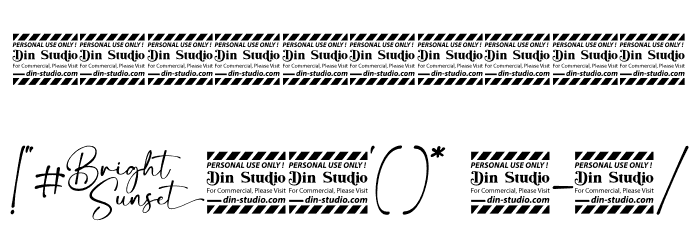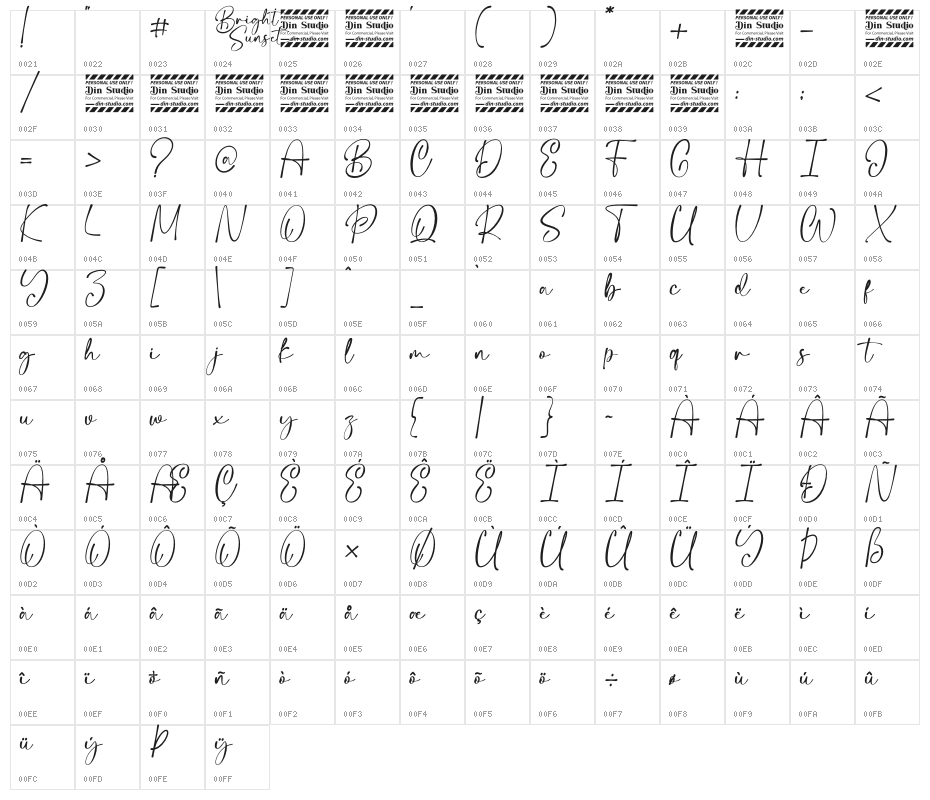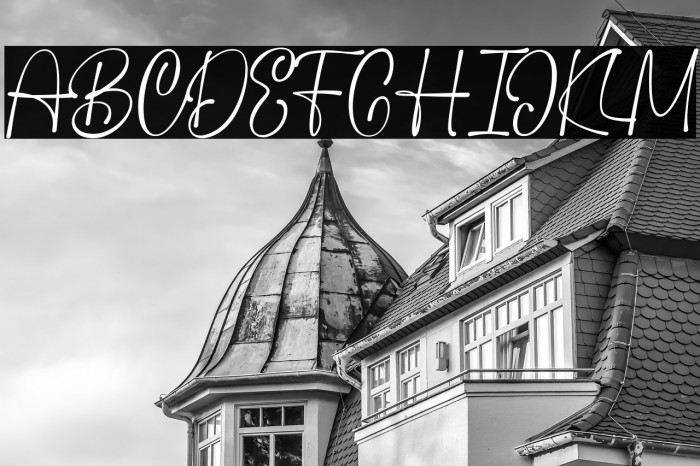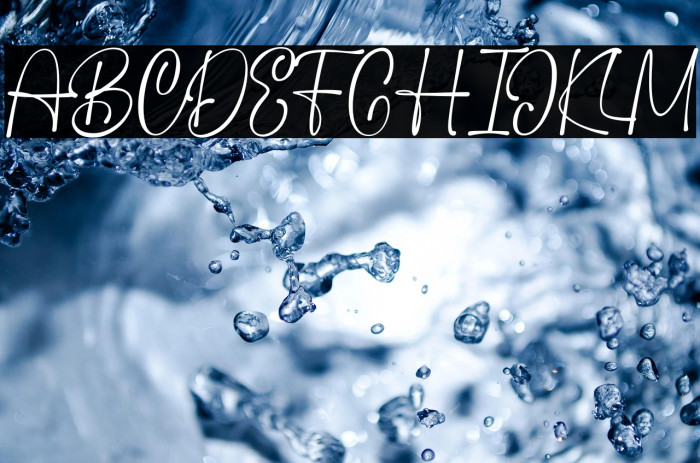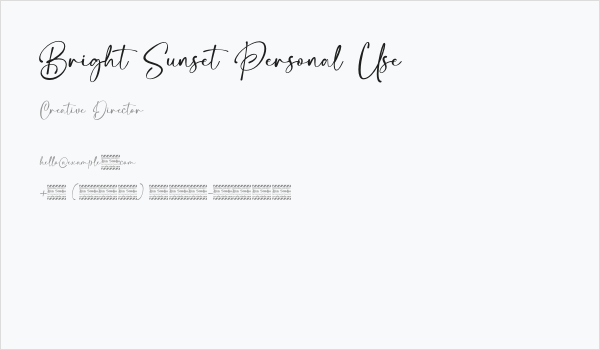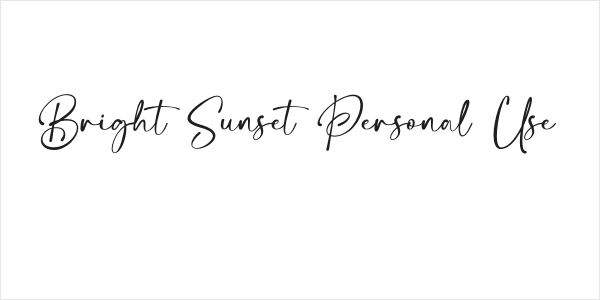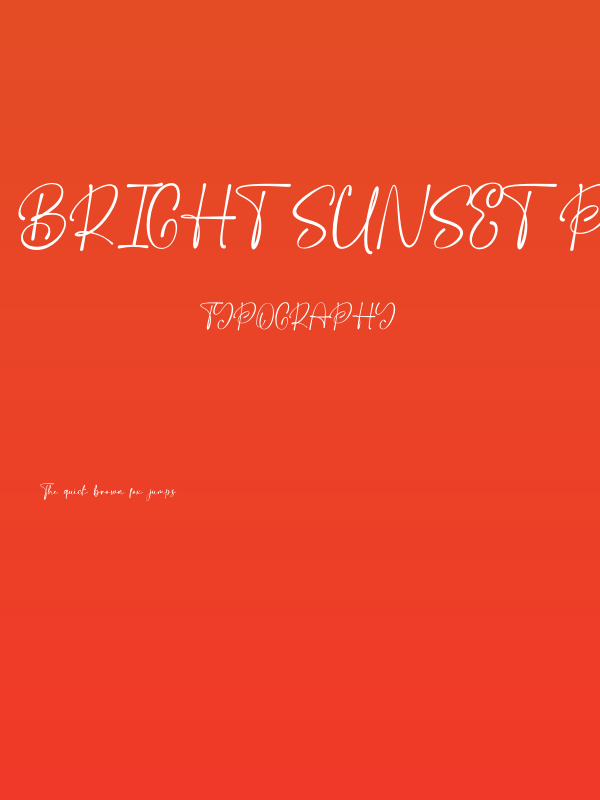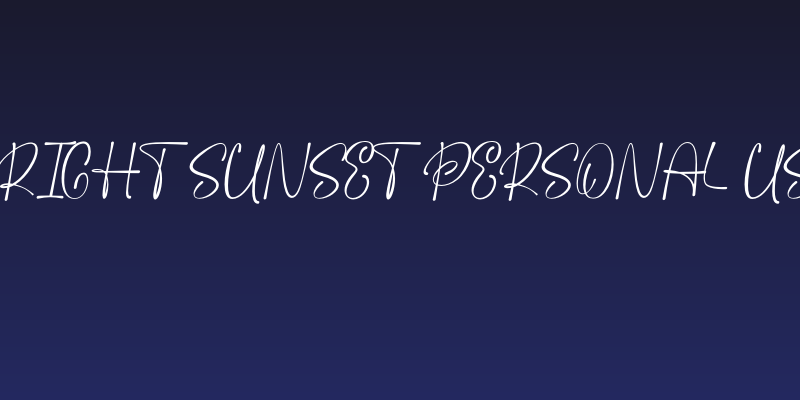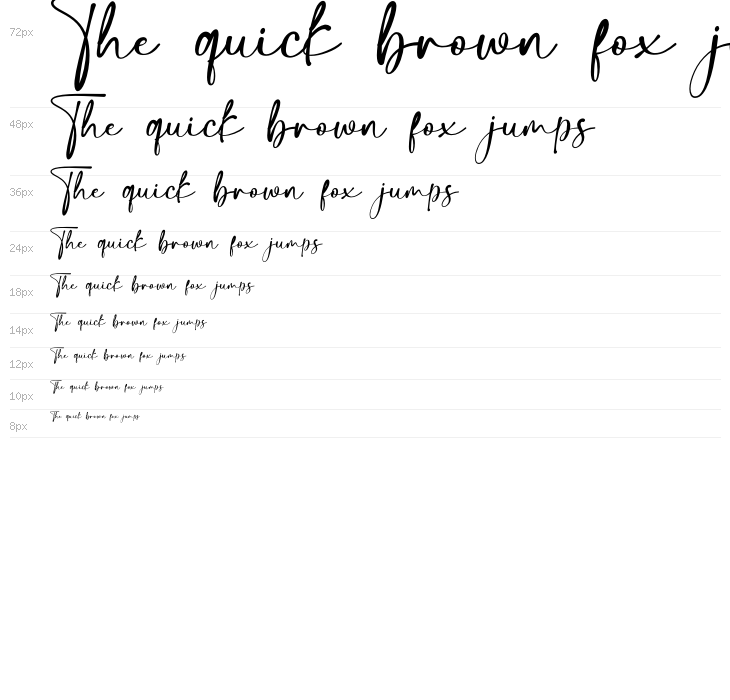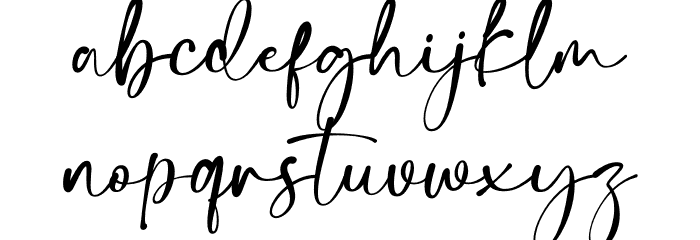
Bright Sunset Personal Use Font
Bright Sunset Personal Use Description
This font features a flowing, cursive style with elegant loops and swirls, giving it a handwritten appearance. The uppercase letters are tall and slender, with a graceful, airy feel, while the lowercase letters maintain a consistent fluidity and charm. The strokes vary in thickness, adding a dynamic quality to the text. The numerals and special characters are designed to match the overall aesthetic, ensuring a cohesive look. This font exudes a sense of sophistication and creativity, making it suitable for projects that require a personal touch.
| Use Case | Logos, Invitations, Personal projects |
| Proposed Projects | Ideal for wedding invitations, greeting cards, branding, and personal projects that require a touch of elegance. |